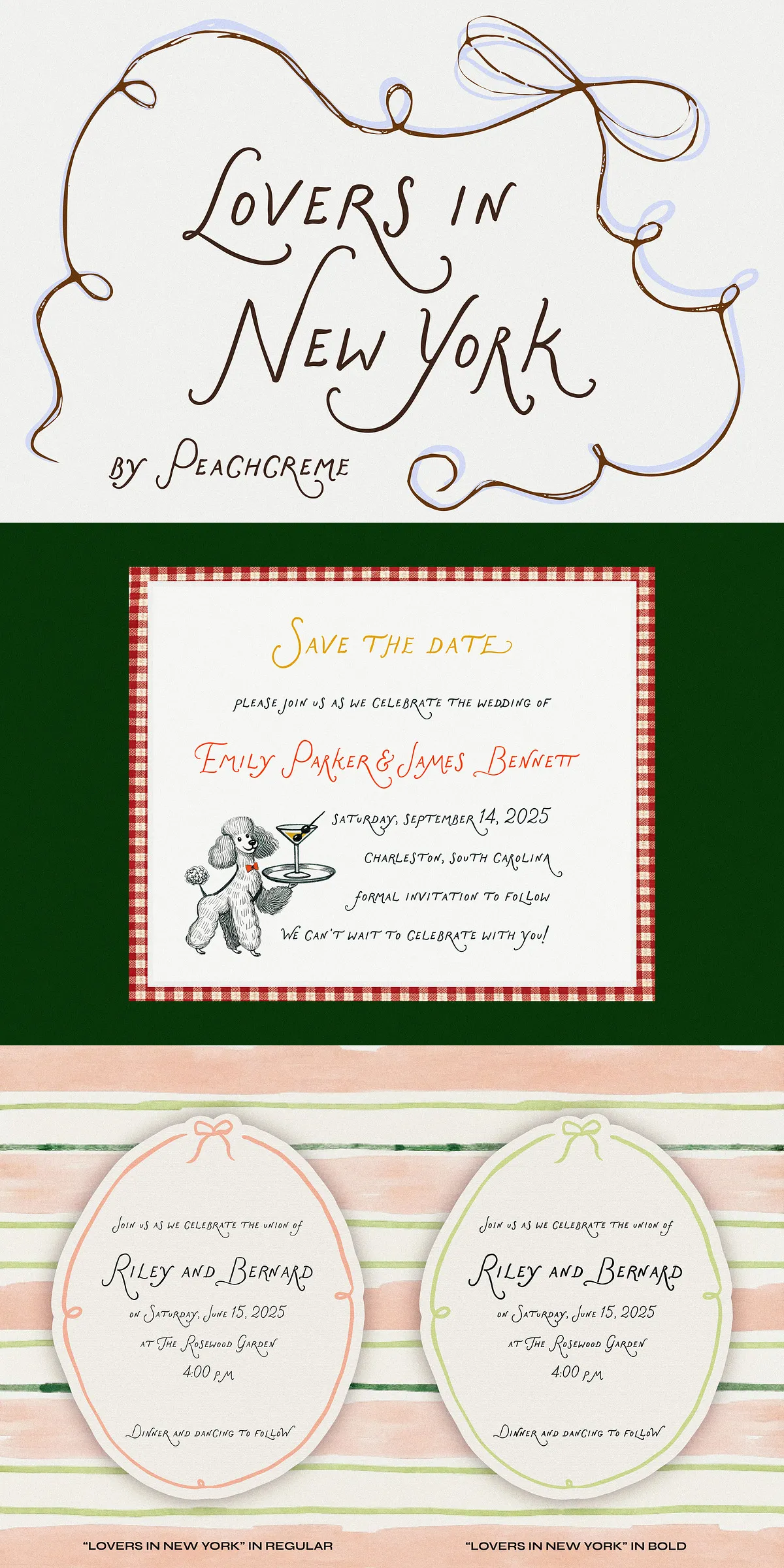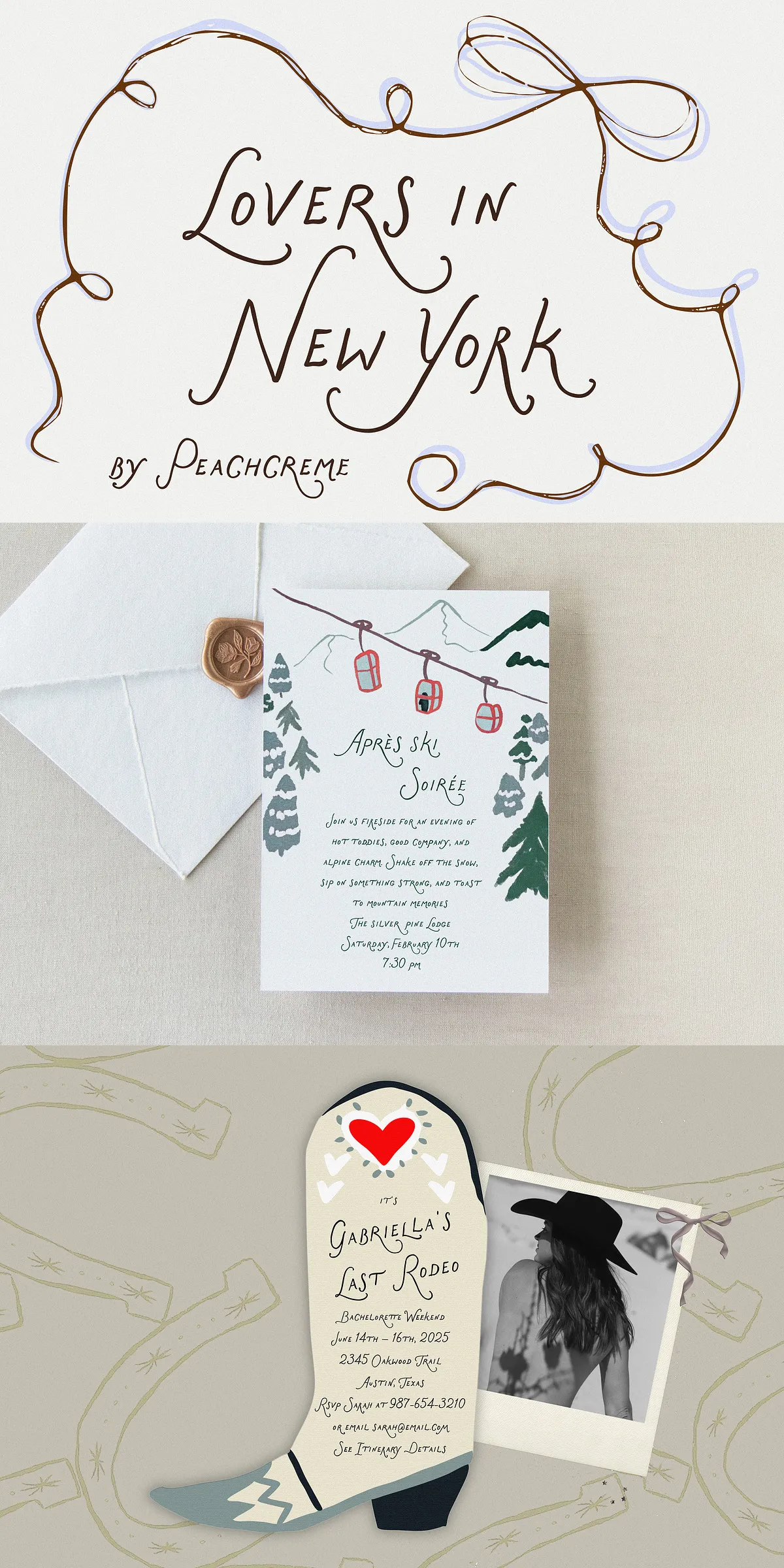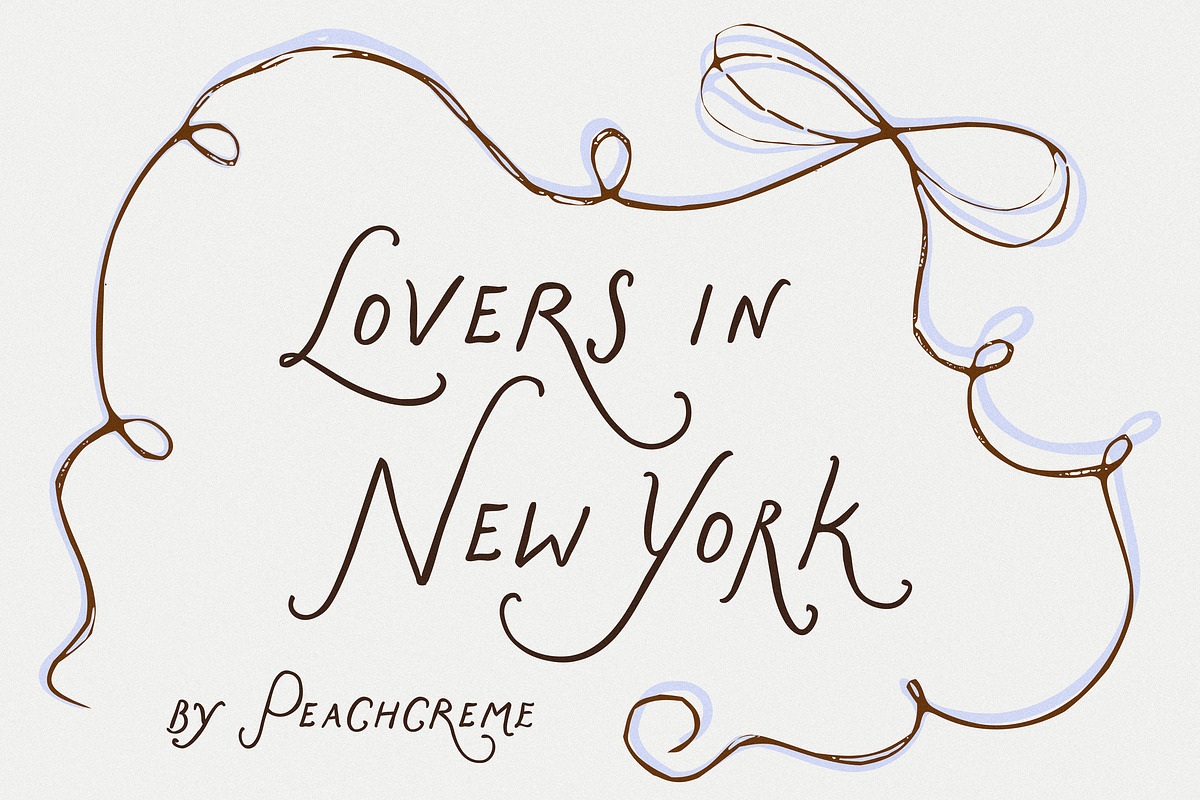
Step into a world where every letter feels alive, where ink flows with intention and each stroke carries a whisper of movement. Meet Lovers in New York Font — a bold, expressive script typeface crafted for designers who crave authenticity, character, and visual storytelling. Inspired by the spontaneous beauty of hand-drawn lettering, this font captures the essence of urban romance, artistic improvisation, and the quiet confidence of handwritten communication.
A Typeface That Breathes & Moves
Lovers in New York isn’t just a font — it’s an experience. Its fluid, dynamic strokes dance across the page, creating a sense of rhythm and motion that pulls readers into the narrative. Unlike stiff, mechanical typefaces, this design embraces subtle irregularities — slight variations in stroke weight, gentle curve shifts, and organic transitions — to give it a human touch without veering into chaos. The result? A balance between polished refinement and expressive informality that feels both intentional and free.
Design Intelligence in Every Detail
What truly sets Lovers in New York apart is its thoughtful structure and typographic intelligence:
- Fluid Hand-Drawn Quality – Each character feels like it was sketched with confidence, conveying energy and personality from the first stroke.
- Hybrid Uppercase/Lowercase Logic – While the lowercase letters maintain a consistent, all-caps structure for optimal legibility in body text, a single uppercase letter is introduced at strategic points to add decorative flair and visual rhythm.
- Expressive Character Flow – The interplay between flowing connections, subtle flourishes, and deliberate breaks creates movement without distraction, guiding the eye naturally through your message.
- High Readability, Low Clutter – Despite its artistic nature, the font remains highly legible in longer passages, making it ideal for invitations, editorial layouts, and branded content.
Your New Go-To Font for Creative Projects
Lovers in New York is engineered for versatility and impact. Whether you’re building a brand identity, designing event materials, or crafting a visual story, this font delivers style with substance. Here’s where it shines:
- Invitations & Event Design – Perfect for weddings, anniversary celebrations, and intimate gatherings. Let the font’s romantic energy set the tone.
- Brand Identity & Logo Design – Add a unique voice to your clients’ brands. Use it for signature marks, taglines, or brand storytelling elements with effortless charm.
- Editorial & Magazine Layouts – Elevate pull quotes, headlines, and feature titles with a design that feels personal and curated.
- Product Packaging & Labels – Bring artisanal appeal to your designs. Ideal for cosmetics, candles, journals, and small-batch goods.
- Web & Digital Applications – Use strategically for hero sections, social media graphics, or website headers to add a touch of warmth and originality.